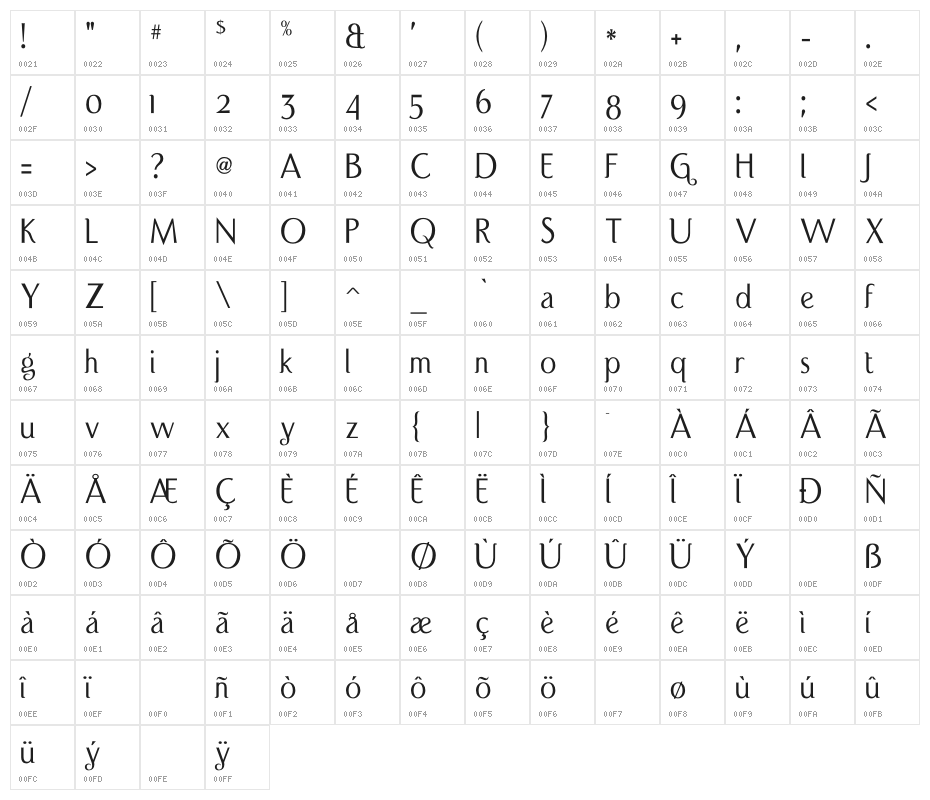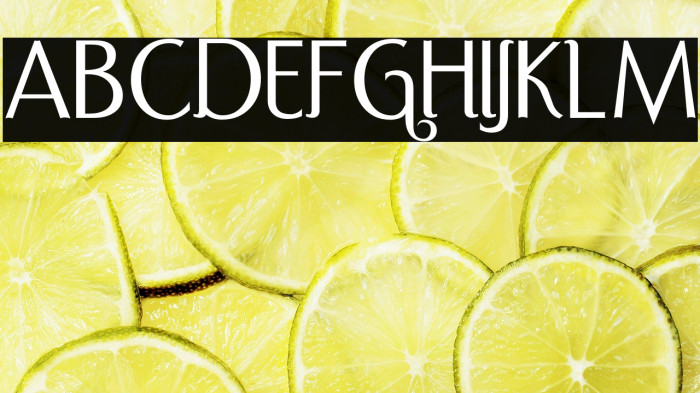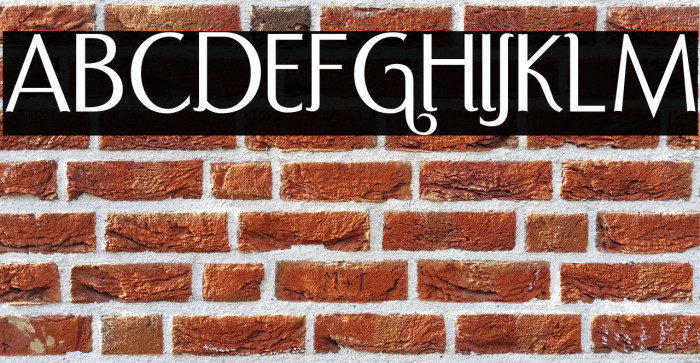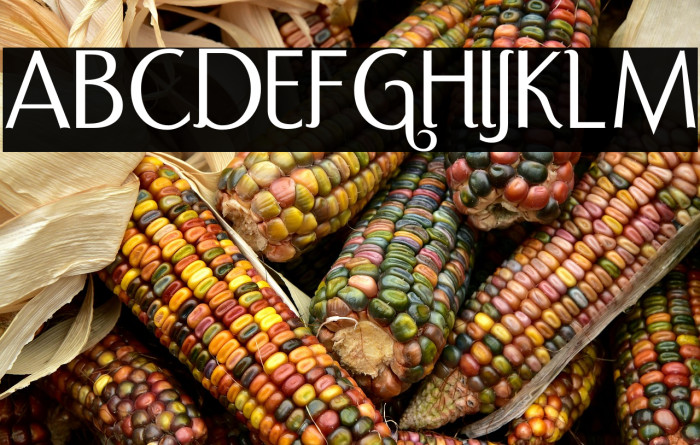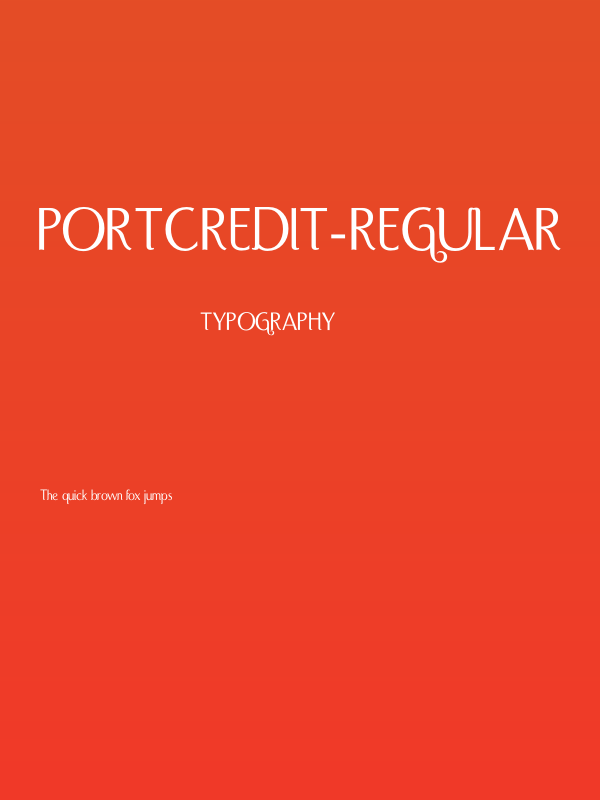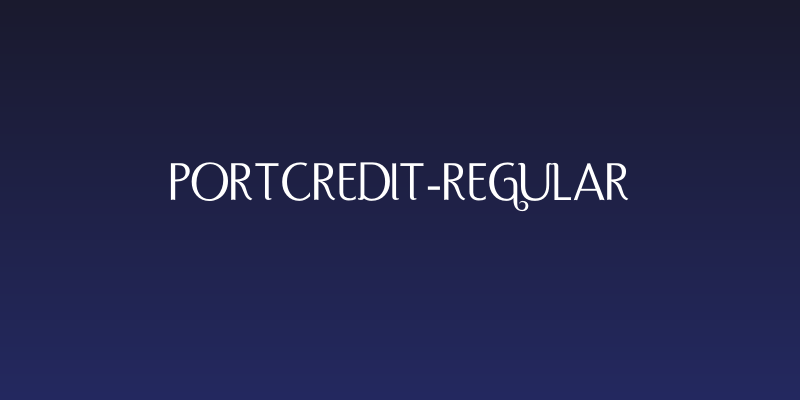
PortCredit-Regular Font
PortCredit-Regular Description
This font features a unique blend of modern and classic elements, characterized by its elegant and slightly elongated letterforms. The uppercase letters exhibit a sophisticated style with subtle curves and sharp edges, while the lowercase letters maintain a clean and readable appearance. The numerals are distinct and well-proportioned, complementing the overall aesthetic. Special characters are thoughtfully designed, adding to the font's versatility. The font's design is suitable for a variety of applications, offering a refined and stylish look.
| Use Case | Headlines, Body text, Logos |
| Proposed Projects | Ideal for branding, editorial design, and elegant invitations. |